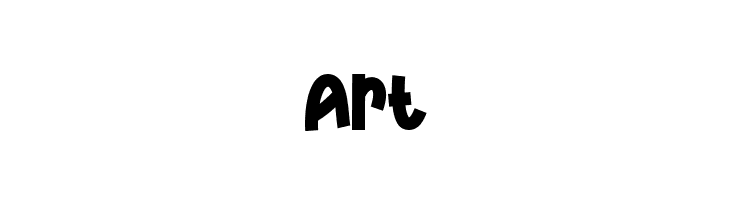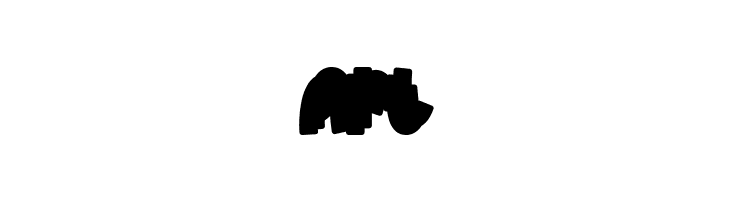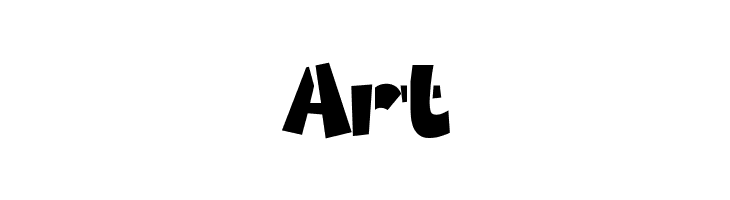
• RhubarbPie
A playful, whimsical font with bold, curvy characters and decorative elements.
• Rhum Banane
A bold, playful font with rounded edges and a strong, friendly presence.
• Rhum Banane
A bold, playful font with rounded edges and a slightly condensed style.
• Rhuma Sinera Inline.
( Fonts by Mabhal Studio )
An artistic inline font with a modern and abstract style.
• Rhuma Sinera Regular.
( Fonts by Mabhal Studio )
A playful, bold font with rounded, slightly irregular characters.
• Rhuma Sinera Shadow.
( Fonts by Mabhal Studio )
A bold, playful font with a distinctive shadow effect and cartoonish style.
• Rhumba Script NF
An elegant script font with flowing curves and decorative swashes.
• RhumbaScript
A graceful script font with elegant loops and swirls, perfect for sophisticated designs.
• RhumbaScriptNF
An elegant script font with flowing, cursive style and intricate loops.
• Rhune-Explorer
( Fonts by Pinisiart )
A bold, geometric font with dynamic, playful characters and unique cutouts.